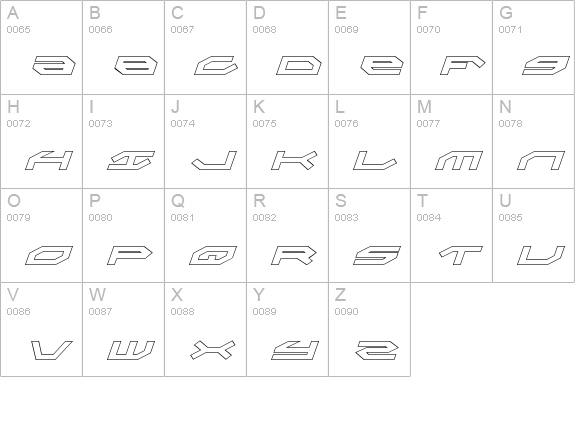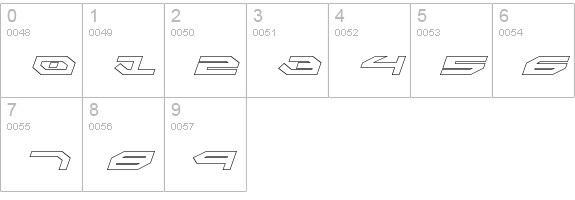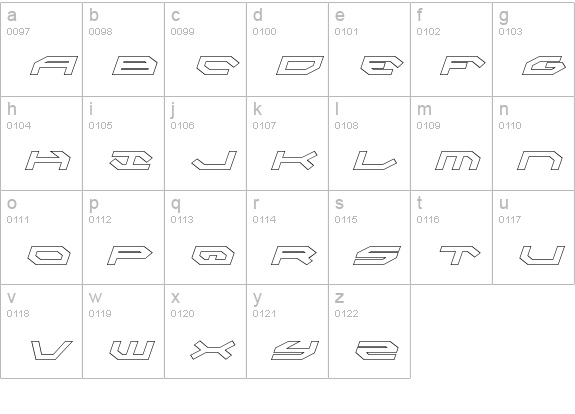
Taskforce Outline Italic is a distinctive, italic variant in the Taskforce typeface family \xE2\x80\x94 well suited to design and typography projects.
Introducing Taskforce Outline Italic font, a sleek and modern typeface designed to bring a contemporary edge to your projects. The italicized style adds a dynamic touch to any design, making it perfect for headlines, titles, and branding materials. Taskforce Outline Italic font features clean lines and a bold appearance that commands attention. This versatile font is ideal for a wide range of applications, from websites to posters, brochures, and more. Whether you're working on a creative project or a professional presentation, Taskforce Outline Italic font is sure to make a lasting impression. Best of all, Taskforce Outline Italic font is available for free download at FontsMarket.com. Take advantage of this opportunity to elevate your designs with this stylish and eye-catching typeface. Download Taskforce Outline Italic font today and bring a touch of modern sophistication to your next project.